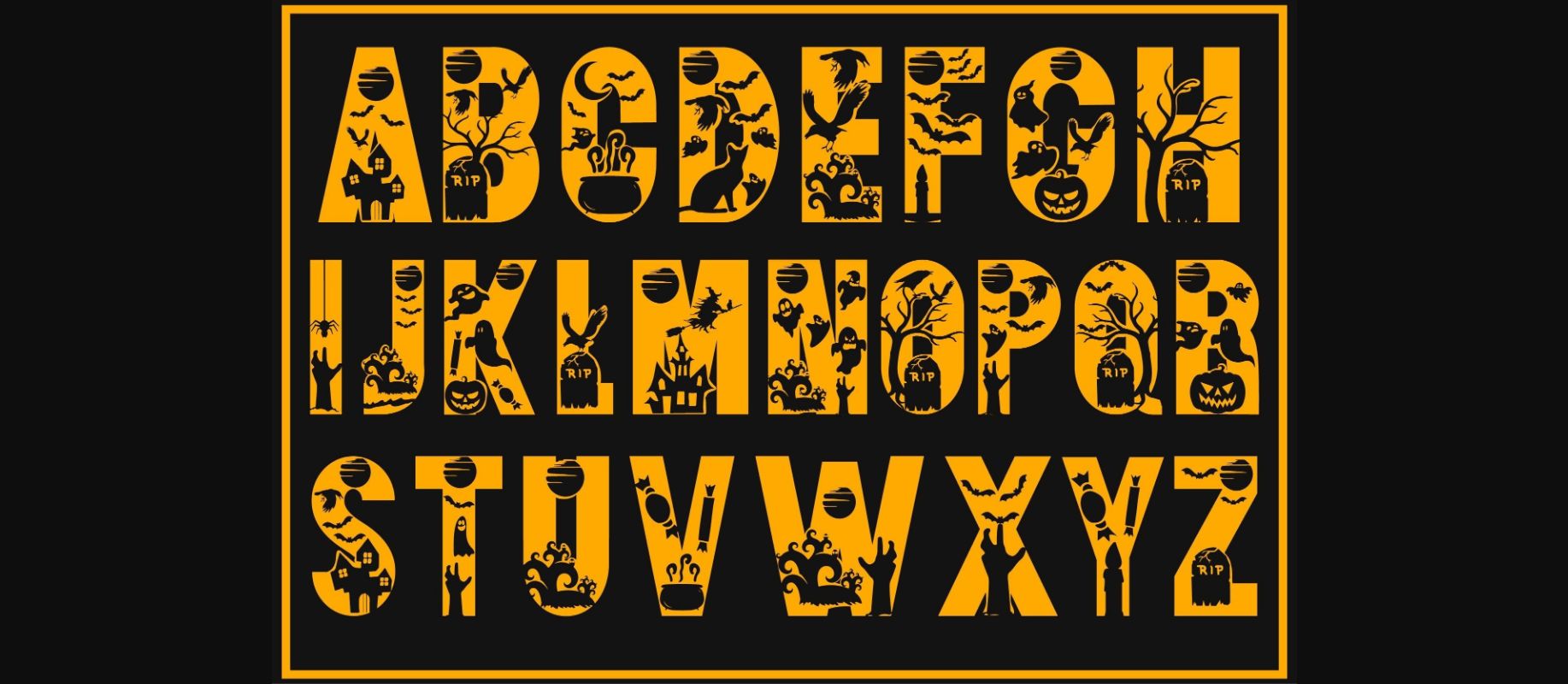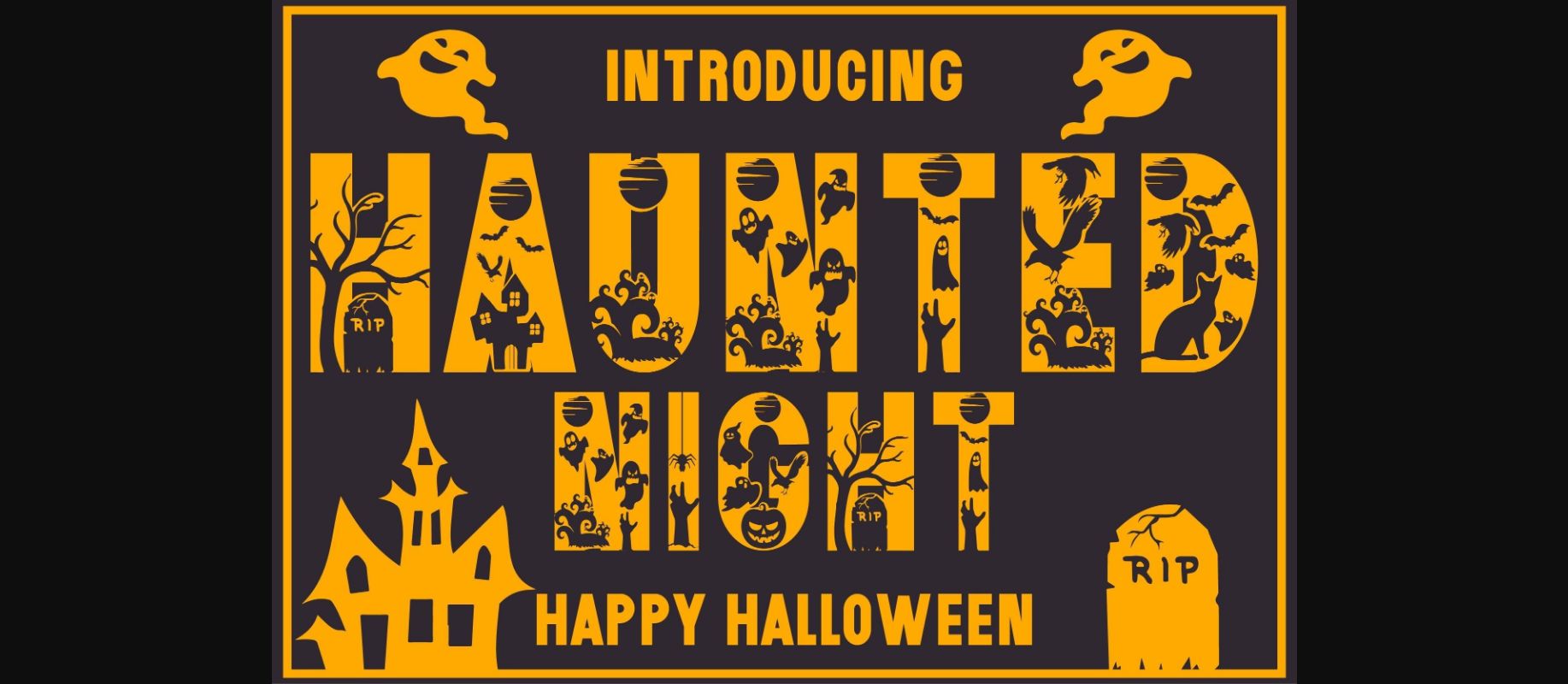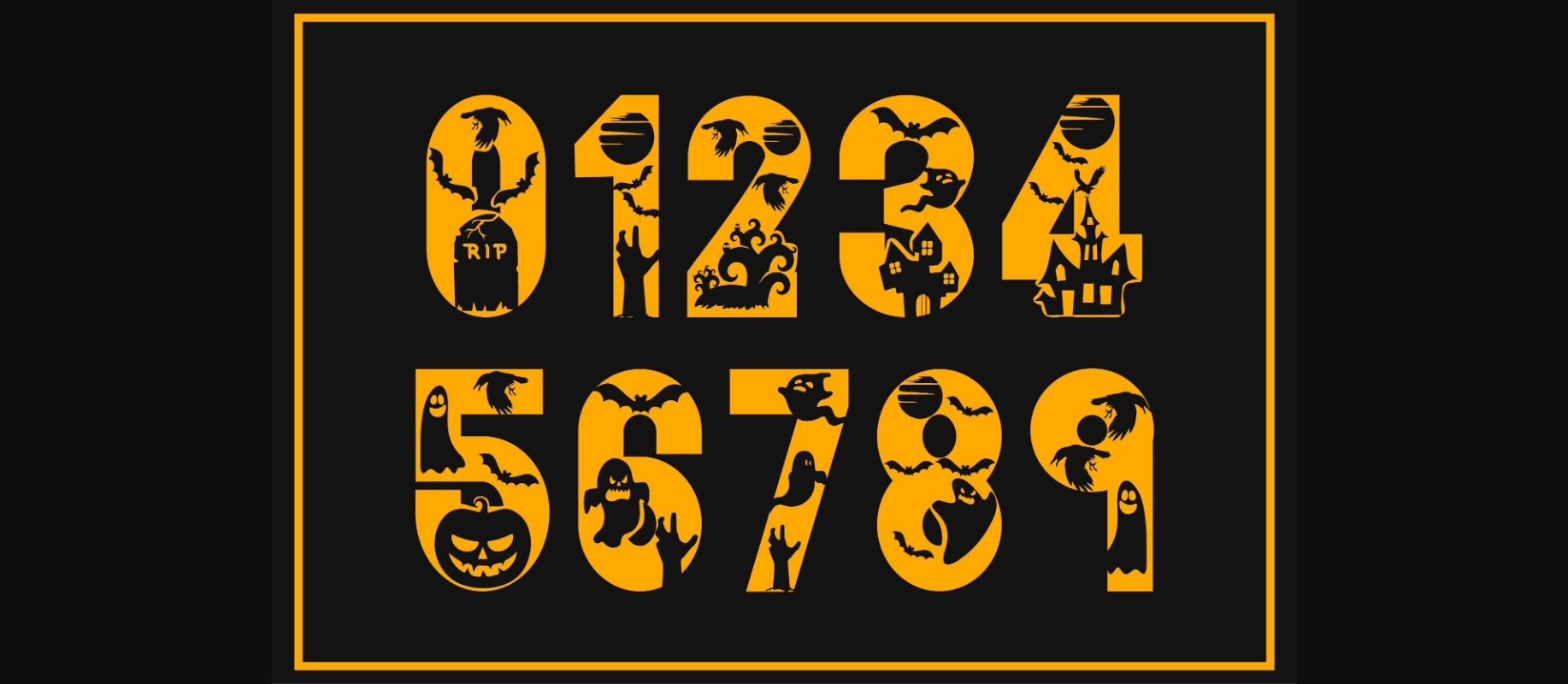
Haunted Night Font
About Haunted Night Font
Haunted Night is a spooky and fun Halloween decorative font. It is perfect for any October project that requires a dramatic touch!